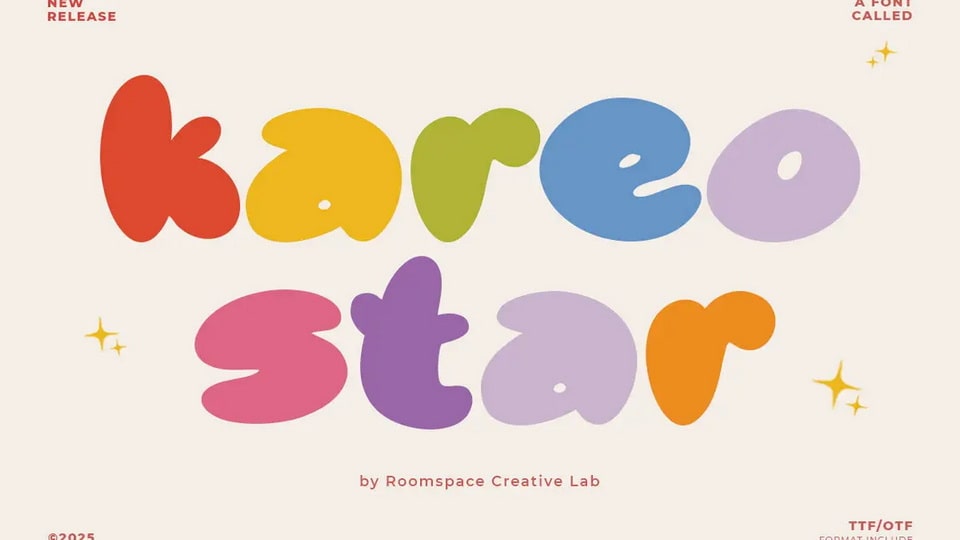
Download Kareo Star font, a fun and chubby display typeface designed to bring joy and character to your creative projects! This rounded and geometric font is perfect for playful branding.